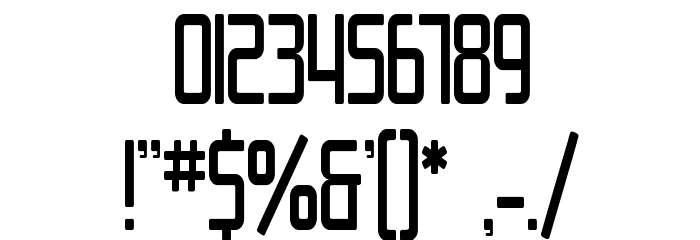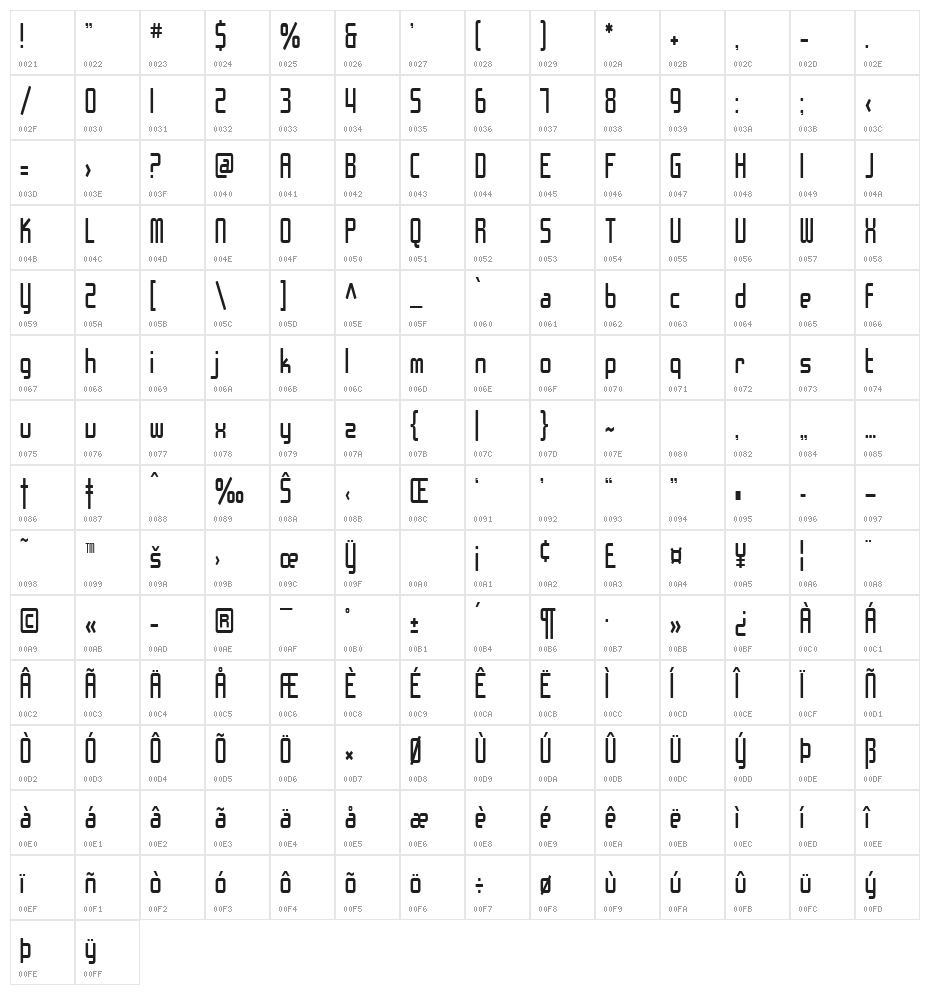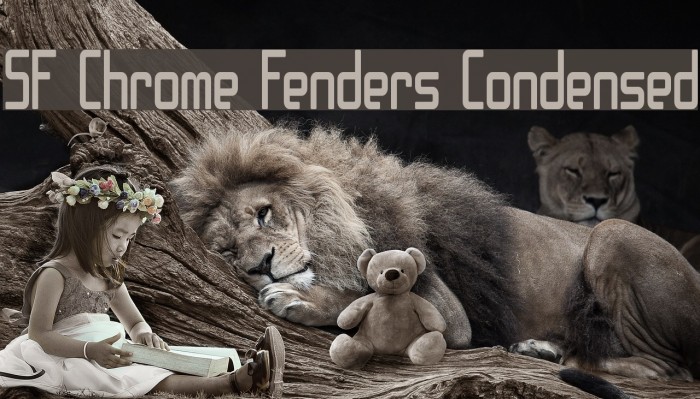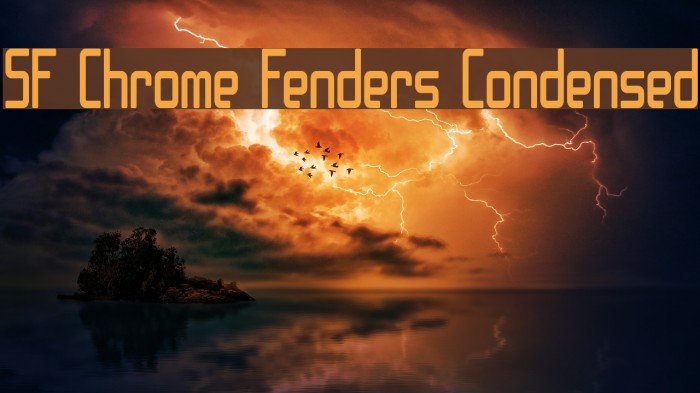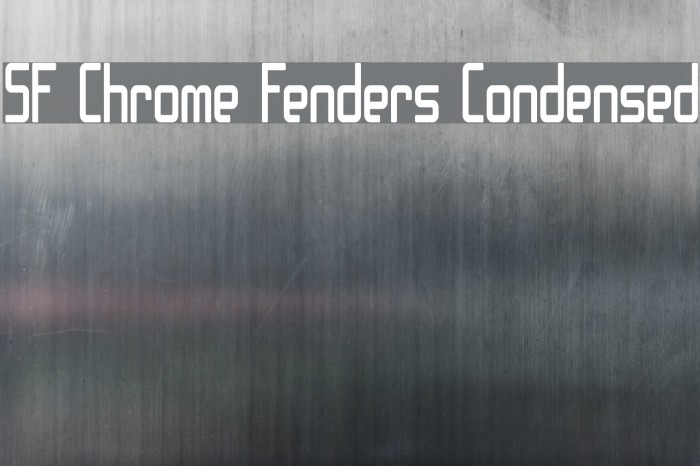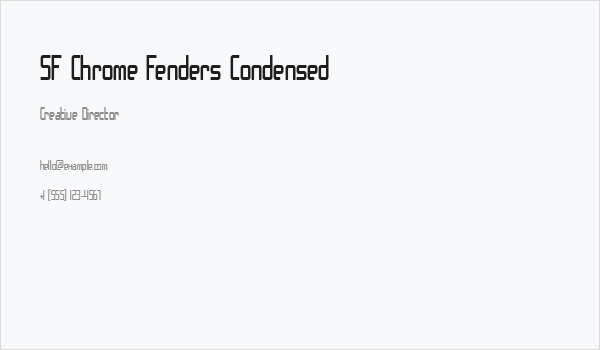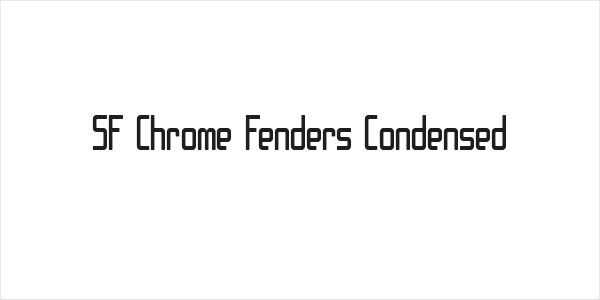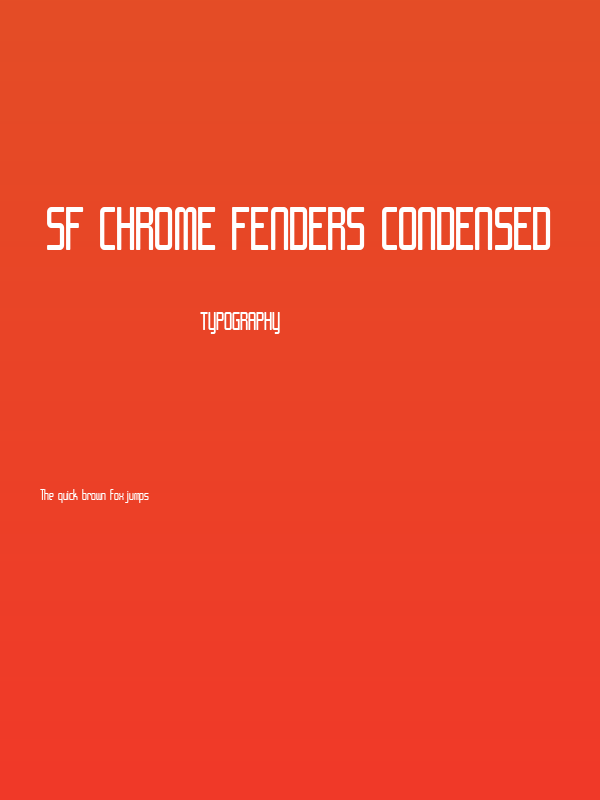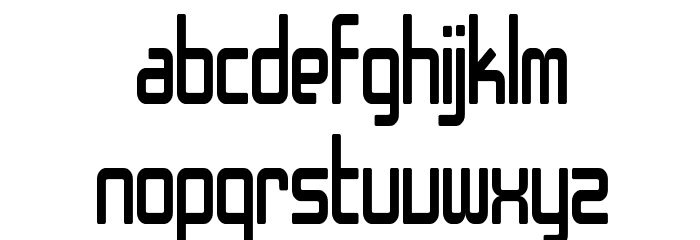
SF Chrome Fenders Condensed Font
SF Chrome Fenders Condensed Description
This font features a modern, geometric design with a condensed structure, emphasizing clean lines and rounded edges. The uppercase and lowercase letters maintain a consistent height, contributing to a uniform appearance. The numerals and special characters are designed to match the overall aesthetic, ensuring a cohesive look across all text. The font's condensed width makes it ideal for space-saving applications, while its bold strokes provide a strong visual impact. The style is both futuristic and versatile, suitable for various digital and print media.
| Use Case | Headlines, Logos, Digital Interfaces |
| Proposed Projects | Ideal for technology branding, futuristic posters, digital interfaces, and modern advertising campaigns. |